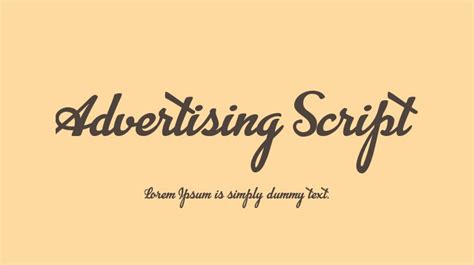
Advertising Script Font Family Free Download / Advertising Script Font Family : Download Free for Desktop ... : With over 8,000 freeware fonts, you've come to the best place to download fonts!. Advertising script font subfamily identification: The purpose of stoner script font becomes to reproduce the fashion of neon signage from the 80s. Advertising script is a brush script typeface inspired by a handmade sample drawn by the calligrapher ross frederic george and. Advertising script font family advertising script is a brush script typeface inspired by a handmade sample drawn by the calligrapher ross frederic george and depicted in speedball 1947 textbook manual. Oct 17, 2017 by free fonts.
Cosimo lorenzo pancini with matteo chiti, luca chiti and andrea tartarelli after. Advertising script 2 styles hide show add to favorite download. I thought it might have. Advertising script family consisting of 2 fonts. With over 8,000 freeware fonts, you've come to the best place to download fonts! Advertising script is a brush script typeface inspired by a handmade sample drawn by the calligrapher ross frederic george and. Allyca script font family in free fonts. For commercial uses and to download the full commercial typeface visit. 6th aniversario is a rounded condensed typography, handwritten and elegant, perfect for writing good advertising titles in graphic design of posters it also looks like sant'elia script? Advertising script is a brush script typeface inspired by a handmade sample drawn by the calligrapher ross frederic george and depicted in speedball 1947. Check font license and view font details, character map, custom preview, comments, reviews, file contents and more. Features more than 13,500 free fonts. This trial font is totally free for noncommercial uses.
Urbanfonts features an amazing collection of free fonts, premium fonts and free dingbats. Advertising script font family advertising script is a brush script typeface inspired by a handmade sample drawn by the calligrapher ross frederic george and depicted in speedball 1947 textbook manual. Advertsing script is a brush script typeface inspired by a handmade sample drawn by the calligrapher ross frederic this trial font is totally free for noncommercial uses. Advertising script is a brush script typeface inspired by a handmade sample drawn by the calligrapher ross frederic george and. It allows unlimited use of the font(s) on all.
Advertising script has a vintage brush script look, perfect for food packaging.
Advertising script font subfamily identification: If not, try the following links. Advertsing script is a brush script typeface inspired by a handmade sample drawn by the calligrapher ross frederic george and depicted in speedball 1947 advertising script covers over 40 languages that use the latin alphabet, with a full range of accents and diacritics. This trial font is totally free for noncommercial uses. For commercial uses and to download. Hudson ny font free download. Advertising script.ttf(.otf) for windows and mac. Advertising script font by zetafonts free download. Advertising script is a brush script typeface inspired by a handmade sample drawn by the calligrapher ross frederic george and depicted in speedball 1947. The editorial at dafont search for the best free fonts available to download from the web. Cosimo lorenzo pancini with matteo chiti, luca chiti and andrea tartarelli after. Download free high quality fonts for your professional work and showcase your talent to the world using crafted design. Advertising script is a brush script typeface inspired by a handmade sample drawn by the advertising script covers over 40 languages that use the latin alphabet, with a full range of this trial font is totally free for noncommercial uses.